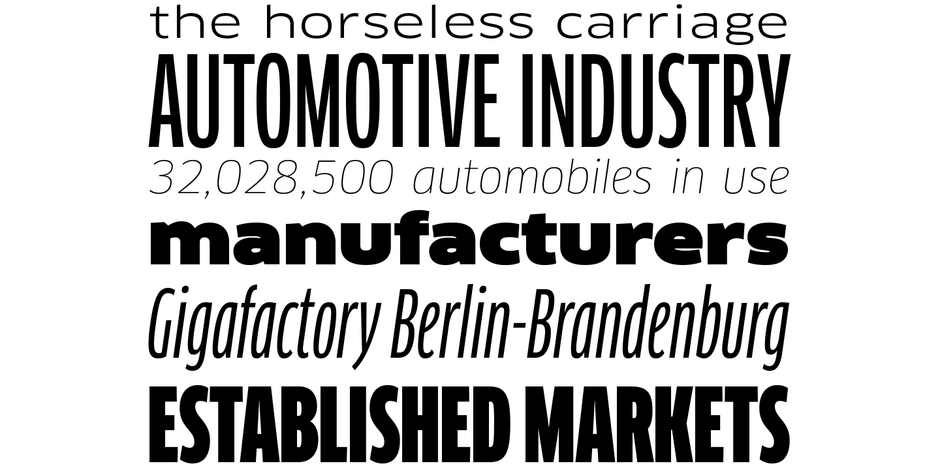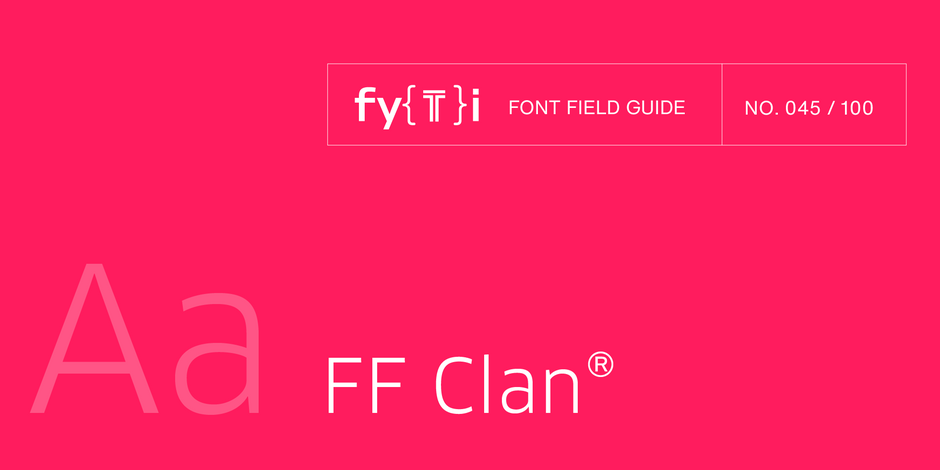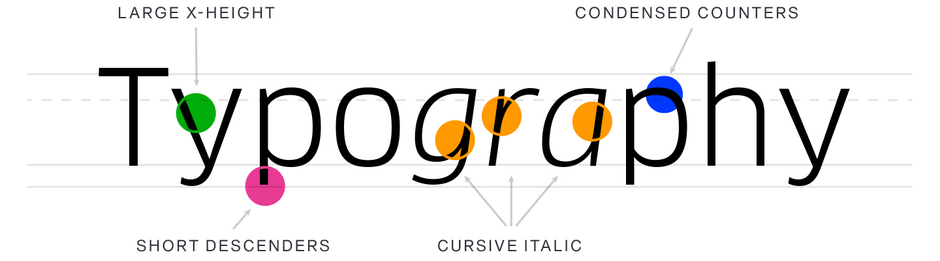
FF Clan® Font Field Guide
BEST PRACTICES
FF Clan is a friendly design that melds a strong geometric aesthetic with humanist warmth. It’s appropriate for a wide variety of typographic applications, from branding to display heads and lengthy text copy, in hardcopy and digital applications.
FAMILY
The FF Clan family has 84 fonts, ranging from Thin to Ultra in Compressed, Condensed, Narrow, Medium, Wide, and Extended proportions: each Roman design has a companion italic.
FONT FACTS
- Dziedzic has said that he designed FF Clan originally for himself – a typeface he always wanted, but could not find.
- FF Clan is a popular type family in Central and Eastern Europe, owing in-part to its designer’s roots and the typeface’s support of a wide range of languages.
ROOTS
Prior to FF Clan, Dziedzic had worked as a graphic designer, typographer, and art director, which gave him insight into a designer’s practical needs from a sans serif family.
He was motivated by the demands of modern publication and corporate identity design, which require both personality and neutrality.
LEGIBILITY
FF Clan News fonts are specifically designed and fine-tuned for optimal readability in newspaper and periodical applications, especially at smaller sizes and in dense text environments.